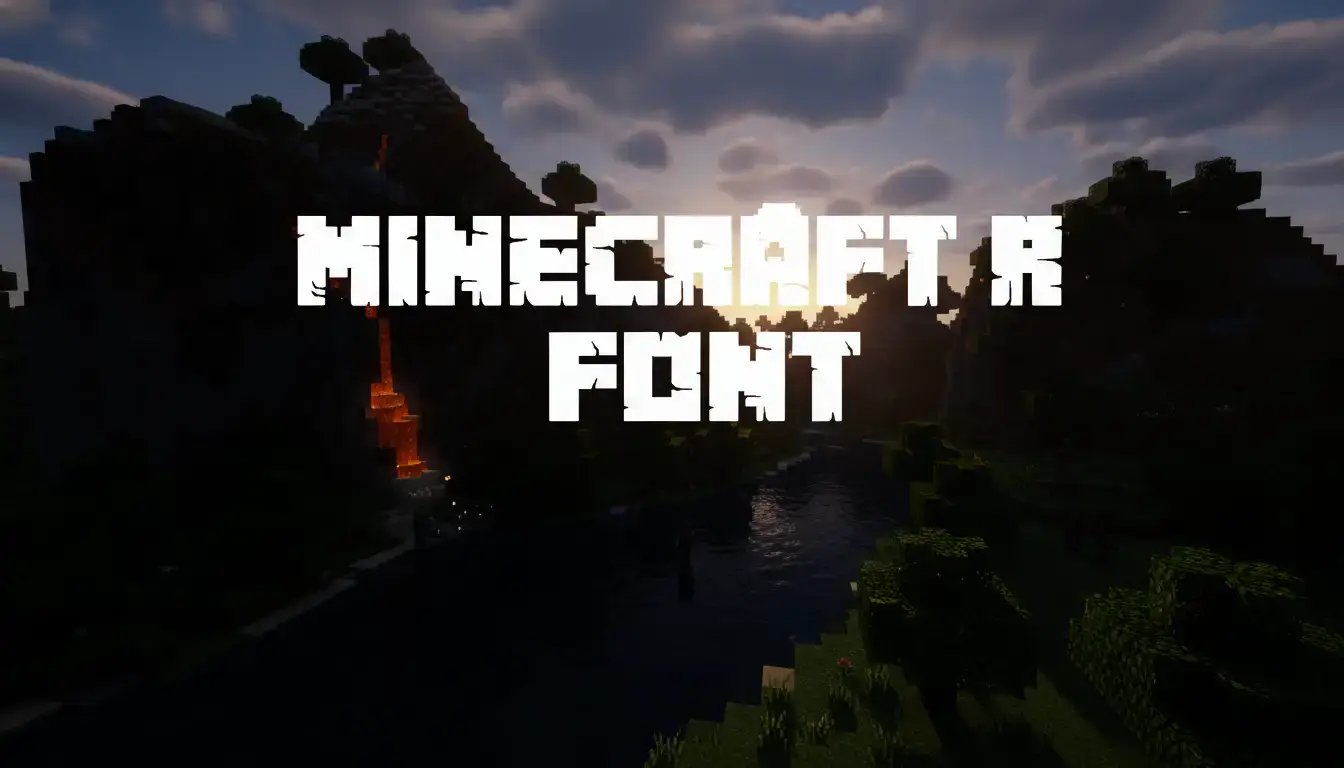
MineCrafter Font
MineCrafter
MineCrafter is a square font. Squared-off, geometric letters give it a digital, high-tech feel. It's a free download, and you can try it with your own text in the preview above first.
What You Can Type With MineCrafter
With complete upper and lowercase letters and all ten digits, MineCrafter is ready for real wording, not just a single headline. Punctuation is limited, so look at the character map if you need a specific symbol. It doesn't include accented letters such as é or ñ, which makes it an English-only font.
Where MineCrafter Works Best
Think of MineCrafter for tech logos, game screens and modern posters. Try it on a dark background with a bright accent color for a sharp, modern look.
Does MineCrafter support accented letters?
No. MineCrafter has no accented letters such as é, ñ or ü, so it's best for English text.
What fonts pair well with MineCrafter?
A simple sans serif like Roboto keeps longer text easy to read next to it.